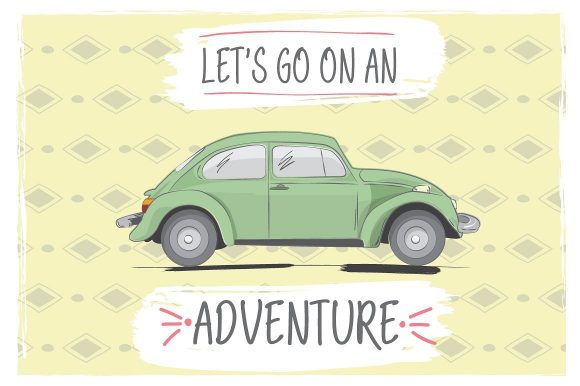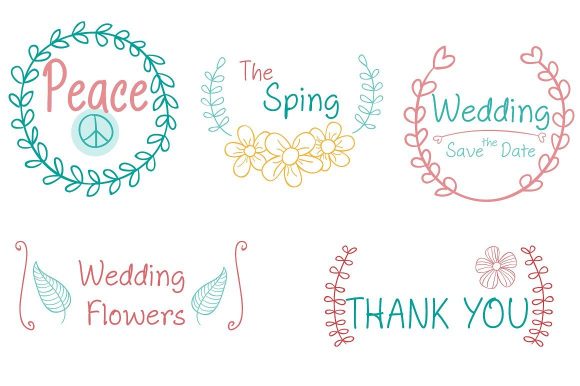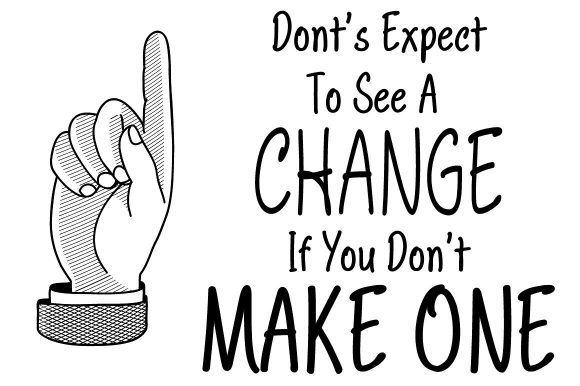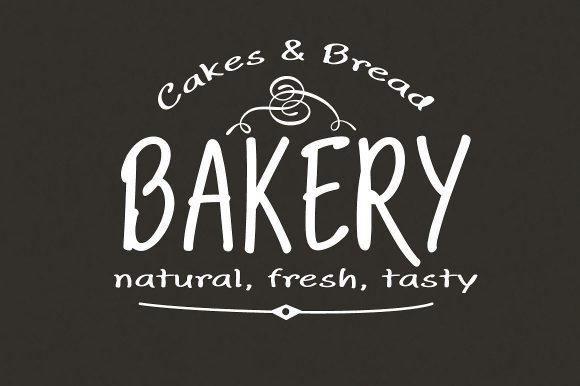
Aberdeen Font: Elevate Your Designs with a Cool, Organic, and Natural Handwritten Style
Are you tired of using the same old fonts in your designs? Do you want to add a touch of personality and whimsy to your creative projects? Look no further than the Aberdeen font, a beautiful, handwritten font that is sure to make your designs stand out. In this article, we’ll take a closer look at the Aberdeen font, its features, and how you can use it to elevate your designs.
What is Aberdeen Font?
Aberdeen is a cool, organic, and natural handwritten font that is perfect for designers and crafters looking to add a personal touch to their work. With its unique and elegant lettering style, Aberdeen can easily be matched to an incredibly large set of projects, making it a versatile and valuable addition to your font collection.
Key Features of Aberdeen Font
- Handwritten style: Aberdeen has a beautiful, handwritten style that adds a touch of personality and whimsy to your designs.
- Organic and natural feel: The font has an organic and natural feel that makes it perfect for designs that require a more earthy and rustic look.
- Cool and elegant: Aberdeen has a cool and elegant style that makes it perfect for designs that require a more sophisticated look.
- Versatile: The font can be used in a wide range of projects, from branding and advertising to packaging and web design.
How to Use Aberdeen Font in Your Designs
Aberdeen font can be used in a variety of design projects, including:
- Branding and advertising: Use Aberdeen font to create unique and eye-catching logos, posters, and advertisements that stand out from the crowd.
- Packaging design: Add a personal touch to your packaging designs with Aberdeen font, making your products stand out on store shelves.
- Web design: Use Aberdeen font to create beautiful and engaging website designs that reflect your brand’s personality.
- Stationery and invitations: Add a touch of elegance and sophistication to your stationery and invitations with Aberdeen font.
Why Choose Aberdeen Font?
There are many reasons why you should choose Aberdeen font for your design projects. Here are a few:
- Unique and creative: Aberdeen font is a unique and creative font that will help your designs stand out from the crowd.
- Easy to read: The font is easy to read, making it perfect for body text and headlines.
- High-quality: Aberdeen font is a high-quality font that is designed to deliver exceptional results.
- Versatile: The font can be used in a wide range of projects, making it a valuable addition to your font collection.
Tips for Using Aberdeen Font Effectively
Here are a few tips for using Aberdeen font effectively in your designs:
- Use it sparingly: Use Aberdeen font sparingly to create emphasis and add visual interest to your designs.
- Pair it with other fonts: Pair Aberdeen font with other fonts to create a unique and visually appealing typography.
- Pay attention to spacing: Pay attention to spacing and kerning to ensure that your text is easy to read.
In conclusion, Aberdeen font is a beautiful, handwritten font that is perfect for designers and crafters looking to add a personal touch to their work. With its unique and elegant lettering style, Aberdeen can easily be matched to an incredibly large set of projects, making it a versatile and valuable addition to your font collection. Whether you’re working on a branding project, packaging design, or web design, Aberdeen font is sure to make your designs stand out.